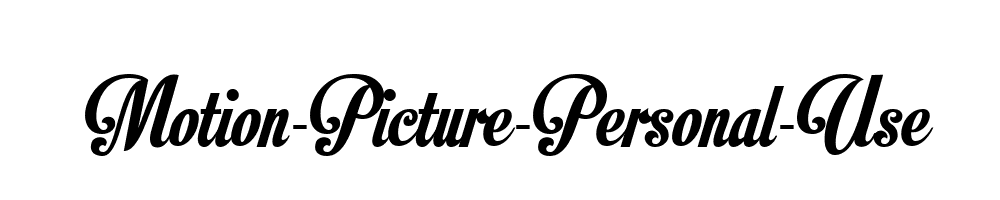
Motion-Picture-Personal-Use
About Motion-Picture-Personal-Use
The font weight name Motion-Picture-Personal-Use is a unique and expressive typeface that captures the eye with its bold and dynamic appearance. The aperture of the letters is wide, allowing for easy readability, while the apex adds a touch of elegance to each character. The arc of the font gives it a modern and sleek look, perfect for capturing attention in any design. The arms of the letters are strong and confident, contributing to the font’s serious yet friendly demeanor. The ascenders reach for the sky, adding a sense of height and grandeur to the overall design. The axis of the font is well-balanced, providing a harmonious flow to the text. The beak-like serifs give the font a classic and timeless quality, perfect for a wide range of projects. The bowls of the letters are full and round, adding a softness to the overall structure of the font. The bracketed serifs add a touch of sophistication, while the open counters create a sense of lightness and airiness. The closed counters, on the other hand, give the font a sense of solidity and strength. The crossbars of the font are bold and assertive, providing a sense of stability and balance. The crotch of the font adds a unique and quirky touch, making it stand out from other typefaces. The descenders are long and elegant, adding a sense of movement and flow to the text. The ears of the font are small and unassuming, adding a subtle charm to the overall design. The eyes of the font are round and friendly, drawing the reader in with their warmth and approachability. The finials of the font are delicate and refined, adding a touch of elegance to each character. The feet of the font are sturdy and reliable, providing a solid foundation for the text. The hairline strokes are thin and delicate, adding a sense of grace and sophistication to the overall design. The head serifs are bold and commanding, giving the font a sense of authority and power. The joints of the font are smooth and seamless, creating a sense of continuity and flow. The legs of the font are strong and stable, providing a sense of support and structure to the text. The ligatures of the font are carefully crafted, adding a sense of sophistication and elegance to the overall design. The link or neck of the font is slender and graceful, connecting the letters in an elegant and seamless way. The loops of the font are round and playful, adding a sense of whimsy and charm to the overall design. The overhangs of the font are subtle and understated, adding a touch of sophistication to the overall structure. The serifs of the font are sharp and precise, giving the font a refined and polished look. The shoulders of the font are broad and strong, adding a sense of stability and support to the text. The spine of the font is straight and sturdy, providing a solid backbone for the characters. The spurs of the font are sharp and angular, adding a touch of modernity and edge to the overall design. The stems of the font are thick and robust, giving the characters a sense of strength and presence. The stress of the font is even and balanced, creating a sense of harmony and symmetry in the overall design. The tails of the font are long and elegant, adding a sense of movement and flow to the text. The tittles of the font are small and delicate, adding a subtle touch of sophistication to the overall design. The terminals of the font are sharp and precise, giving the characters a clean and polished finish. The vertex of the font is sharp and angular, adding a touch of modernity and edge to the overall design. Classified as progressive yet classic, familiar yet daring, this font strikes the perfect balance between tradition and innovation. With its expressive and elegant design, it is sure to make a strong statement in any project. Its serious yet friendly demeanor makes it a versatile choice for a wide range of applications, from sleek and modern to classic and timeless. With its organic yet technical feel, this font is the perfect blend of form and function, making it a standout choice for designers looking to make an impact. Whether you need a font that is discreet yet loud, warm yet cold, Motion-Picture-Personal-Use has the versatility and sophistication to suit your needs. So why not give this font a try and see how it can elevate your next design project?